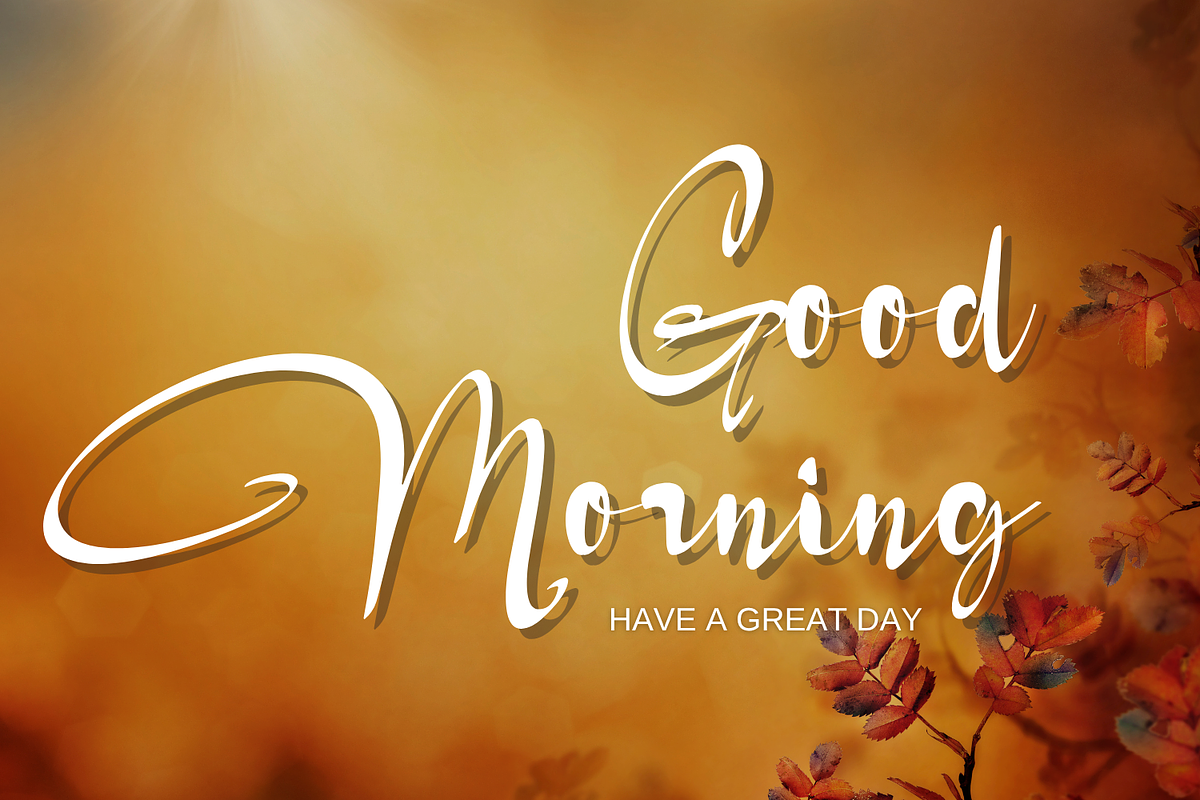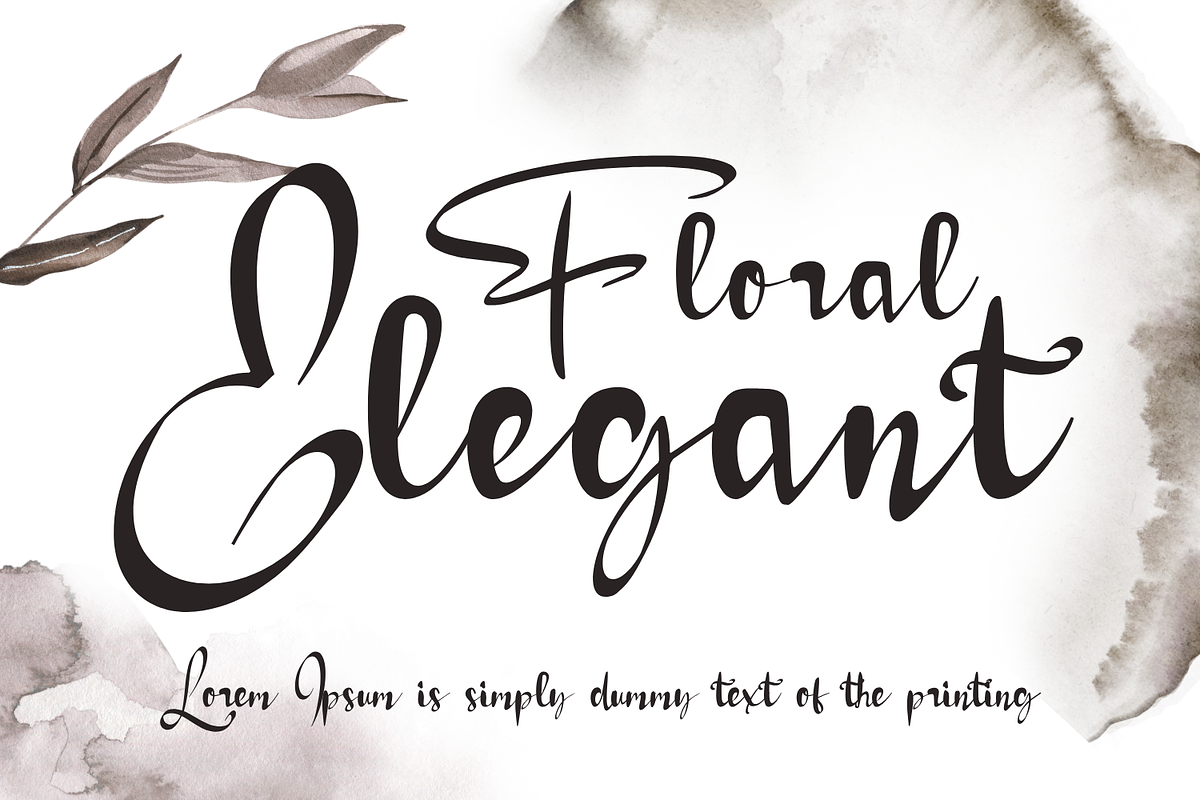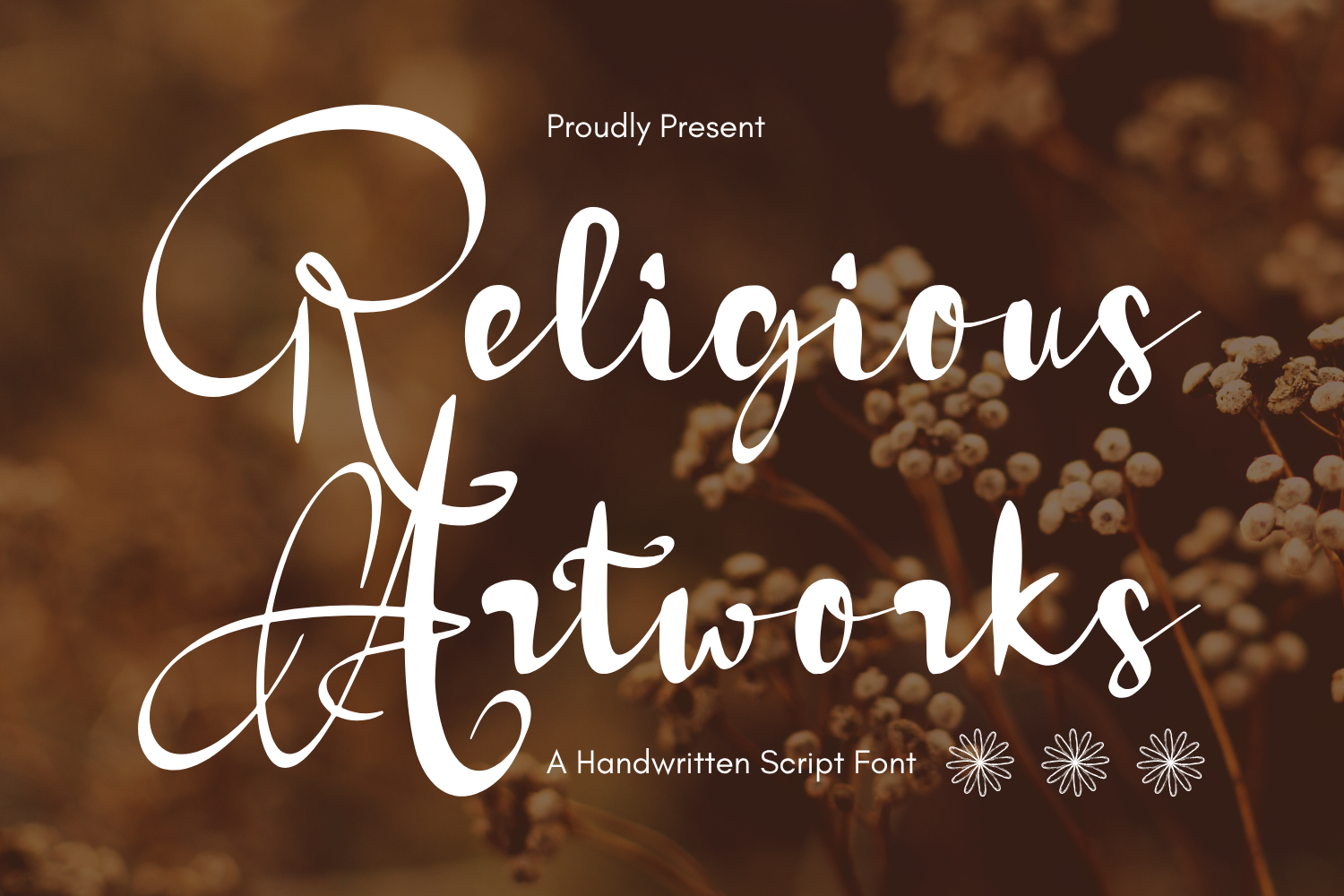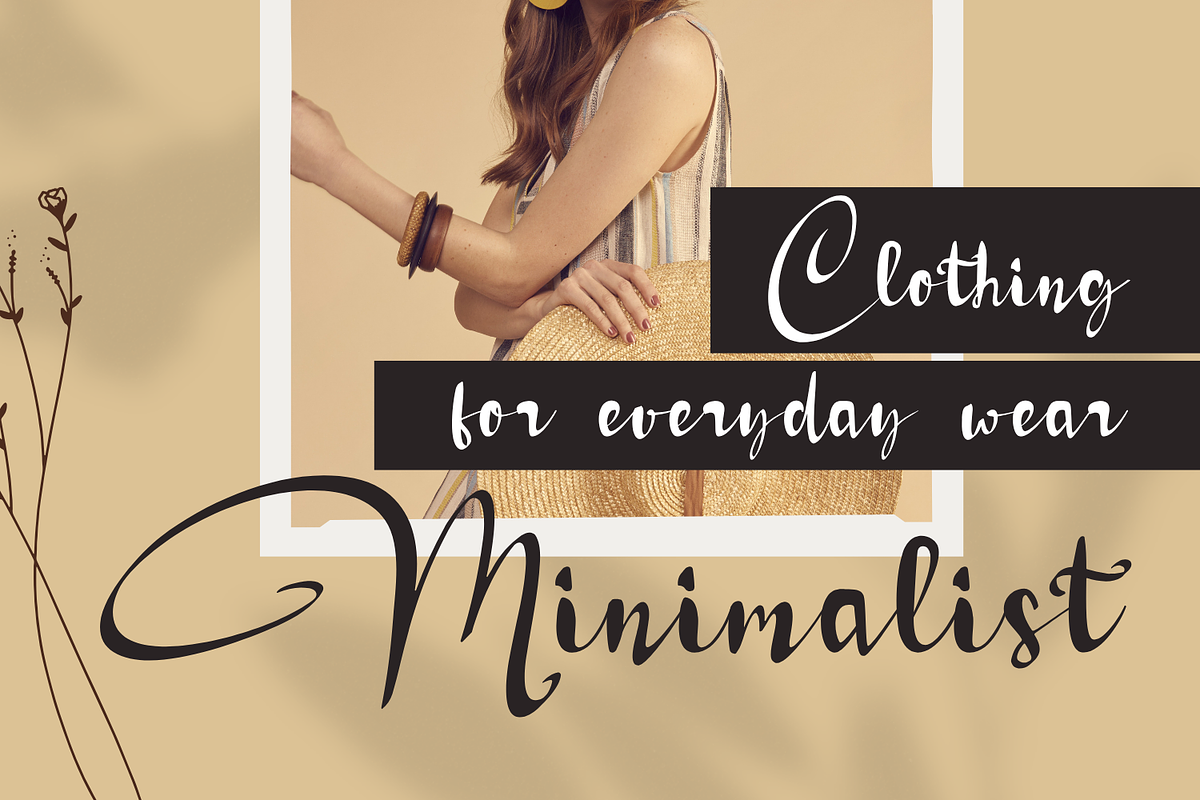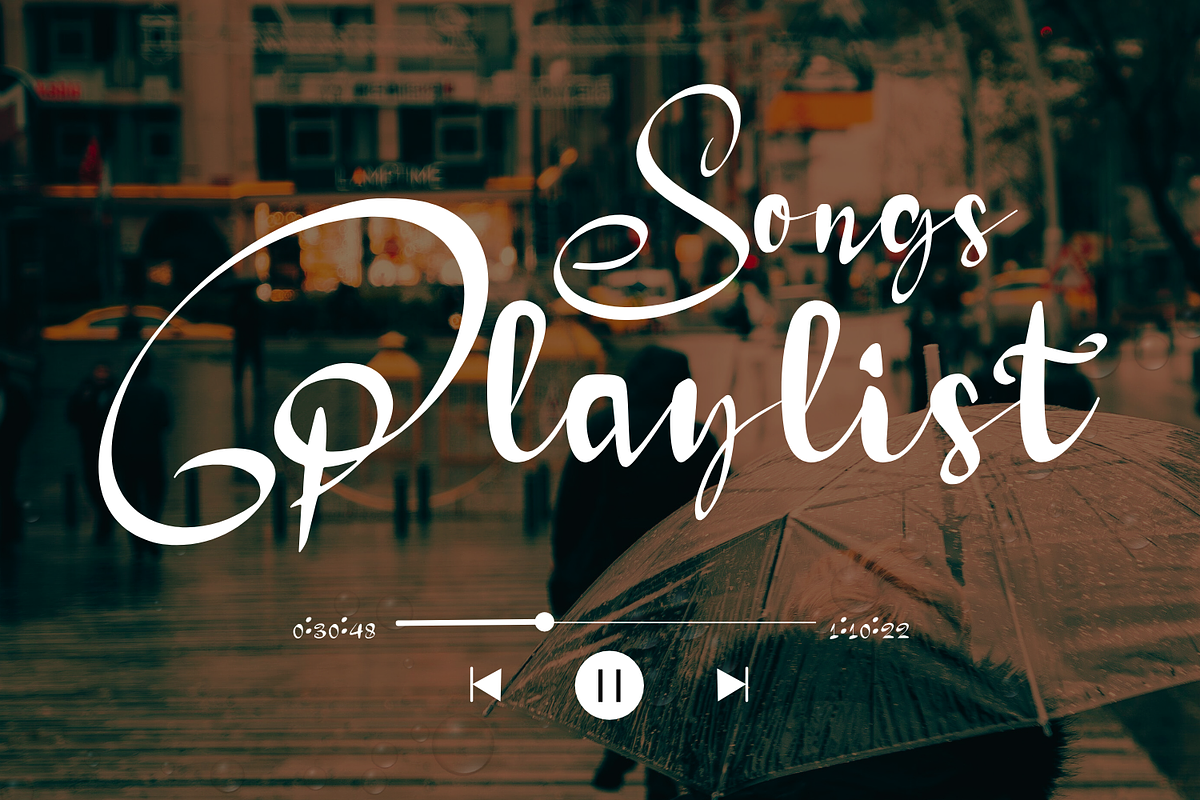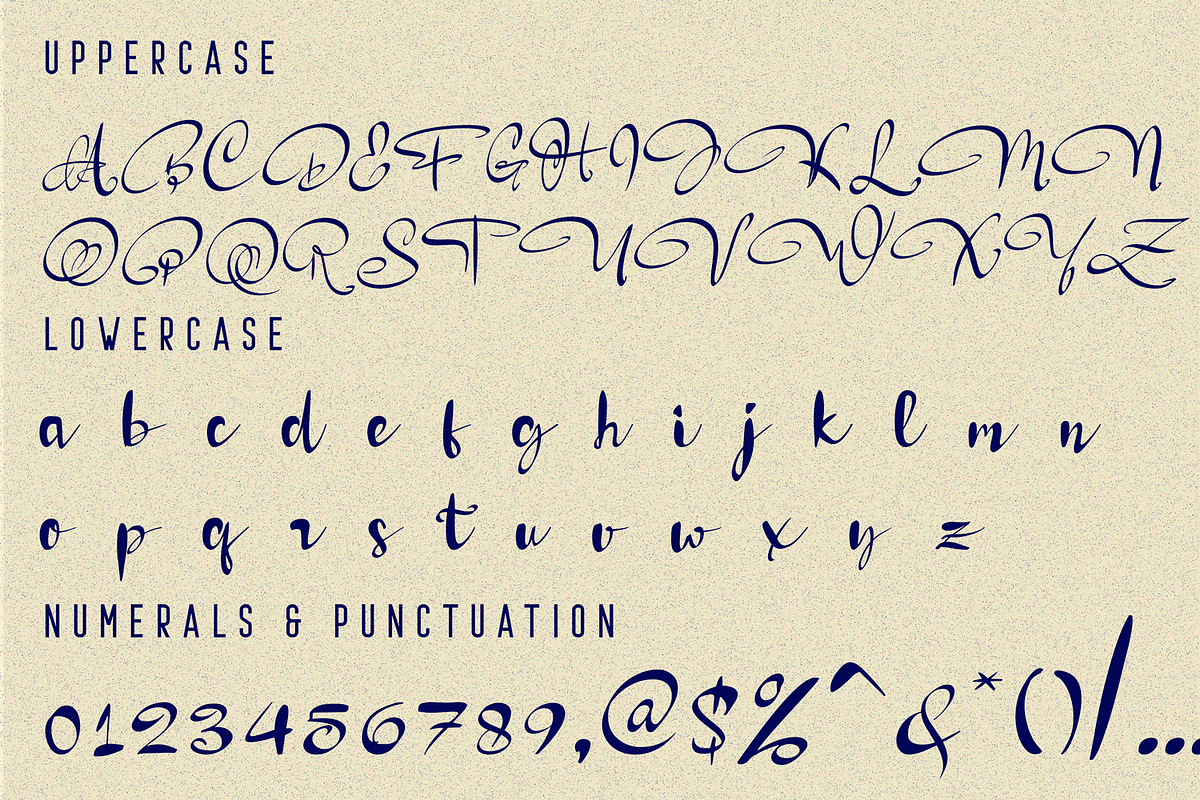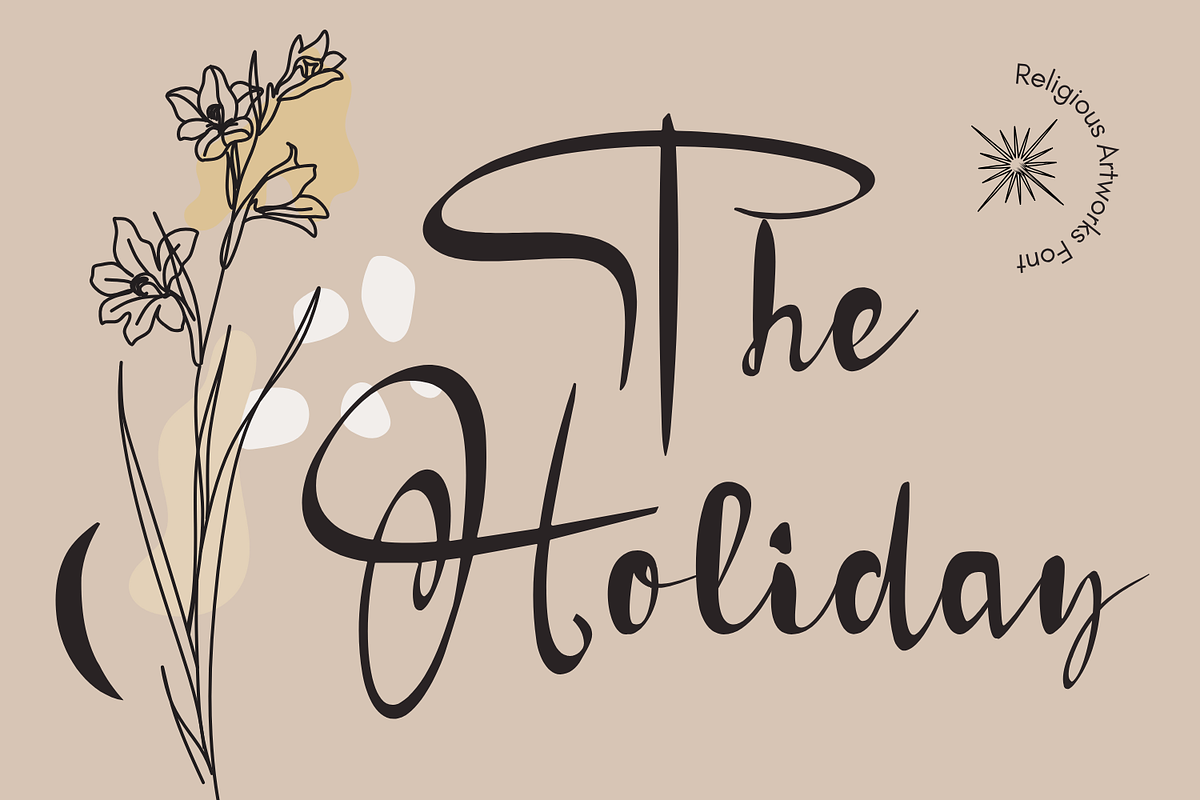
Religious Artworks Calligraphy Font
Religious Artworks - Calligraphy Font is an elegant handwritten script font that captures the beauty of calligraphic strokes with a graceful and flowing rhythm. Designed with smooth curves and delicate swashes, this font radiates a natural handwritten charm that feels both personal and refined. Each letter connects seamlessly, evoking a sense of warmth and sophistication — perfect for wedding invitations, greeting cards, feminine branding, logos, quotes, and elegant product packaging.
- Authentic brush strokes & textured details